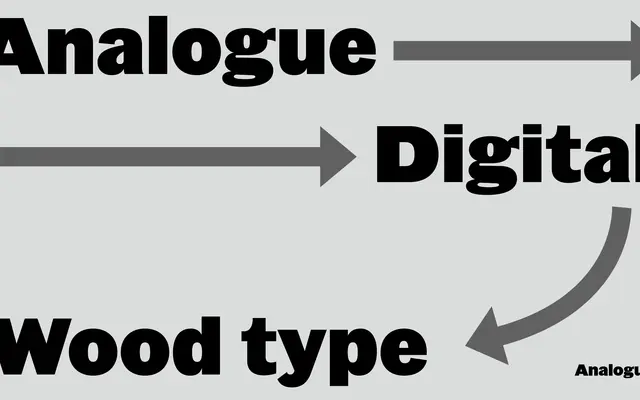
A sans serif family originating from just two letters found in a Morgan Press Type catalogue, extended into a seven-weight grotesque with wood type and early specimen influences.
The design began with a single page from the Morgan Press Type catalogue bearing only a capital G and a capital B, which A2-Type used as the seed for a full grotesque family. The resulting seven weights run from Light to Black, balancing the directness of letterpress wood alphabets with the cohesion expected of a contemporary type system. The family has received a Tokyo TDC Prize and an ISTD Certificate of Typographic Excellence.
A bold sans serif drawing on letterpress wood type and early sans serif specimens, placing it firmly in the grotesque tradition with historical vernacular roots.